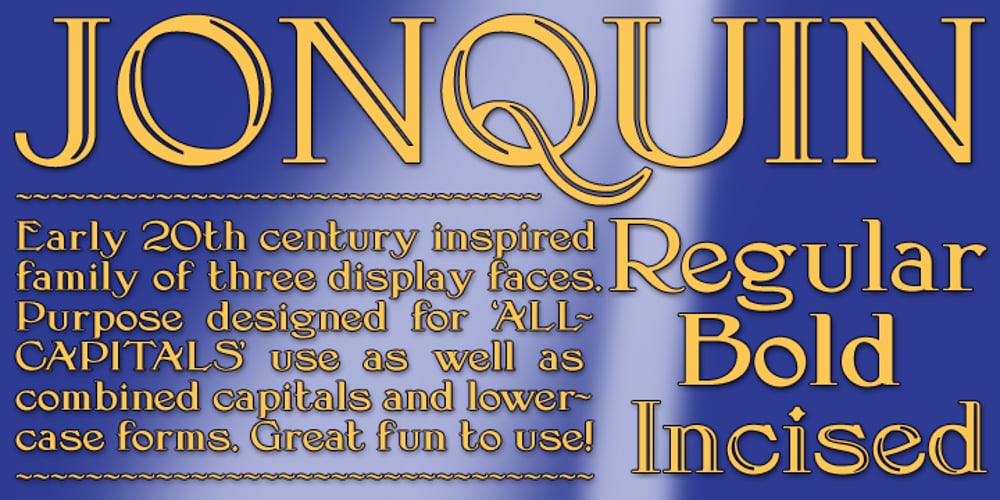
Jonquin Font Family was designed by Paul James Lloyd and published by Greater Albion Typefounders. Jonquin contains 3 styles and family package options. Jonquin was inspired by some hand lettering seen on a World -War One recruiting poster. It’s a family of three faces for display work and headings designed to be used readily as an ‘All-Capitals’ face as well as in upper and lower case format. Regular and bold weights are offered, as well as an even more decorative incised form. The whole family is ideally suited for poster and advertising work, as well as book and record covers and period themed signage.